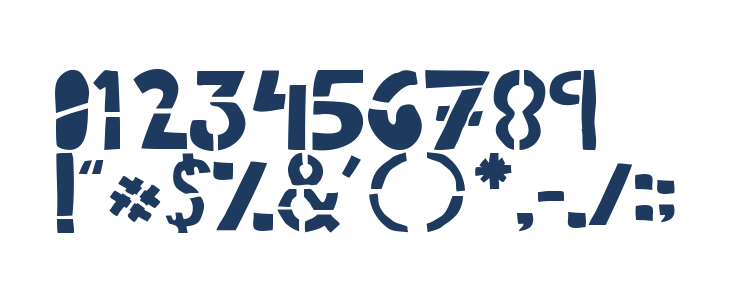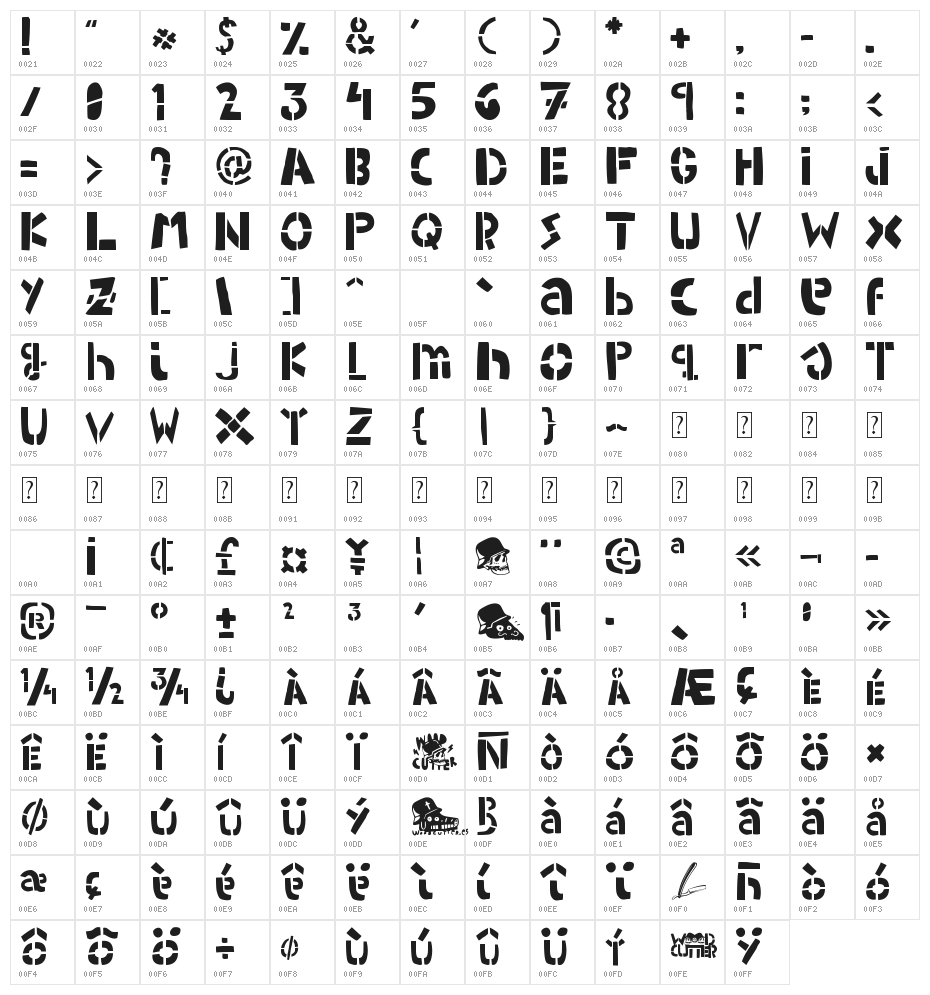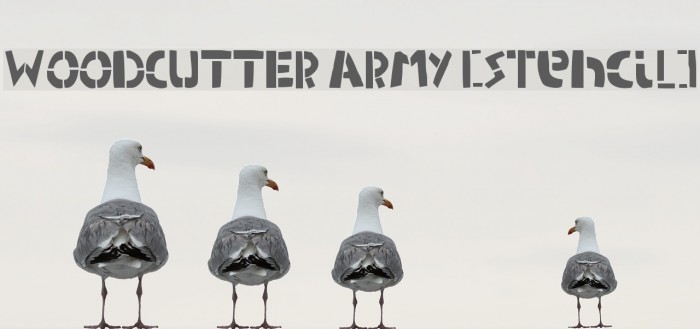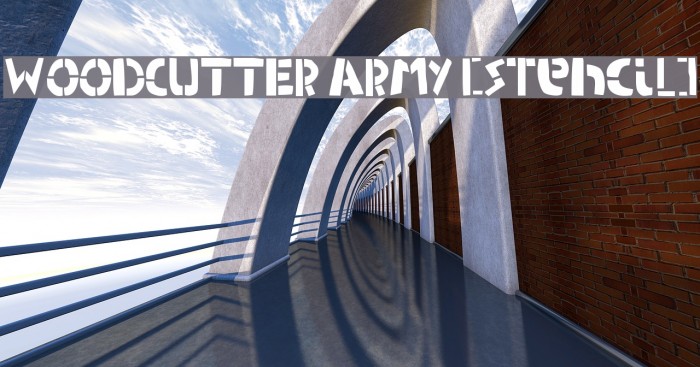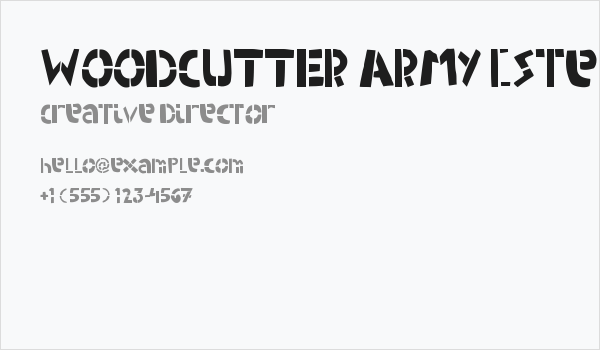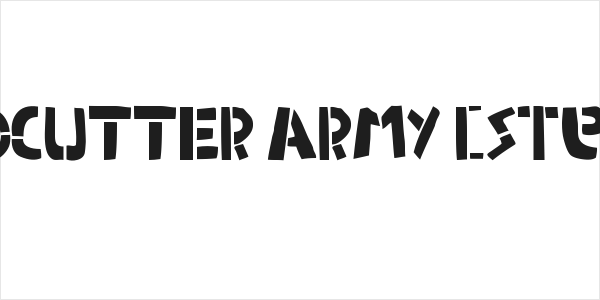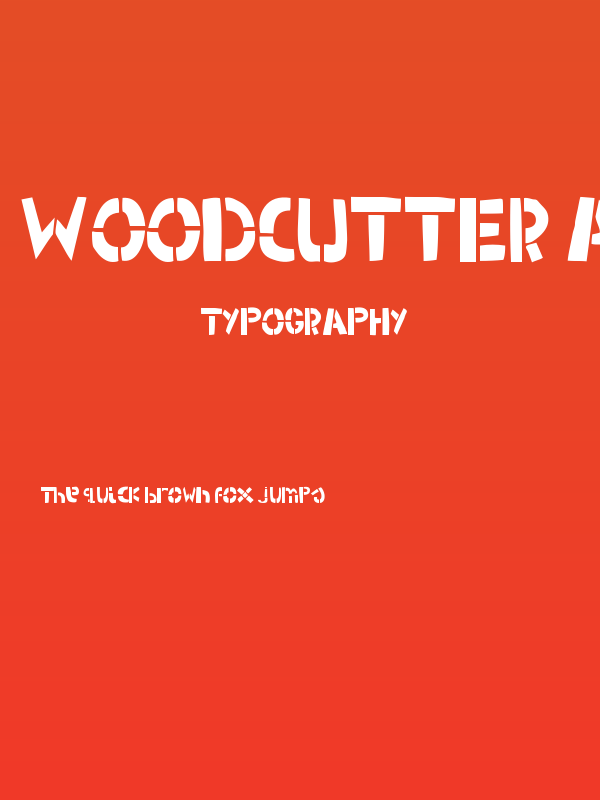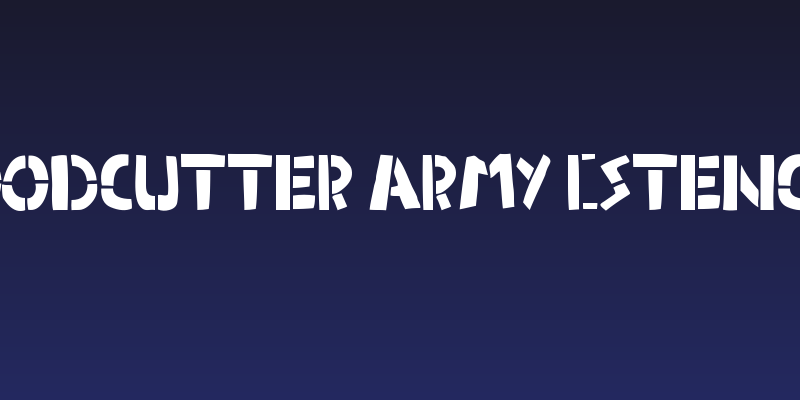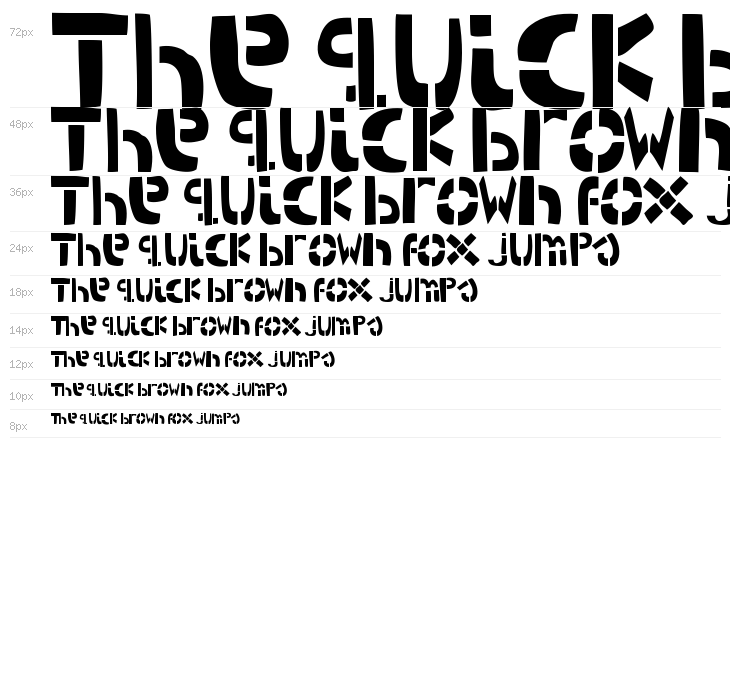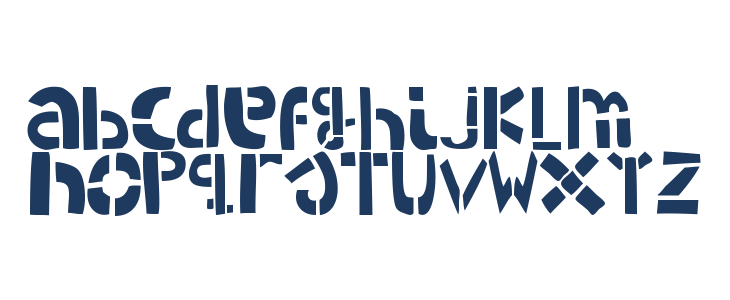
WOODCUTTER ARMY [Stencil] Font
WOODCUTTER ARMY [Stencil] Description
This font features a bold, stencil-like design with a military-inspired aesthetic. The characters are constructed with solid, blocky shapes that are interrupted by intentional gaps, giving it a rugged and utilitarian feel. The uppercase and lowercase letters maintain a consistent style, with angular cuts and geometric forms. Numbers and special characters follow the same design principles, ensuring uniformity across the typeface. This font is ideal for projects that require a strong, impactful presence, such as posters, signage, and branding materials that aim to convey strength and authority.
| Proposed Projects | Ideal for military-themed designs, posters, signage, and branding that requires a strong, authoritative presence. |